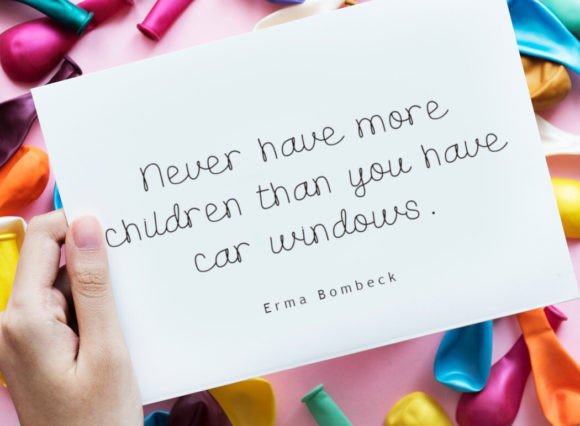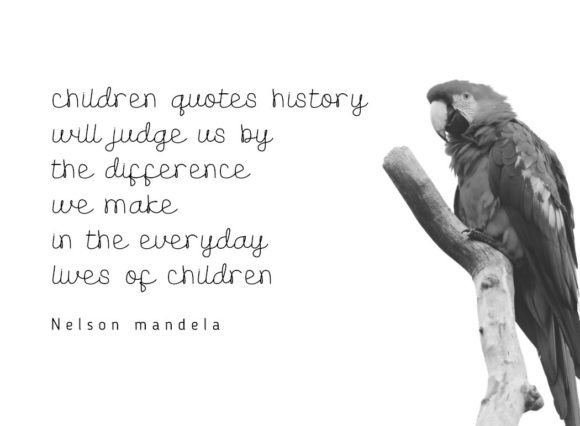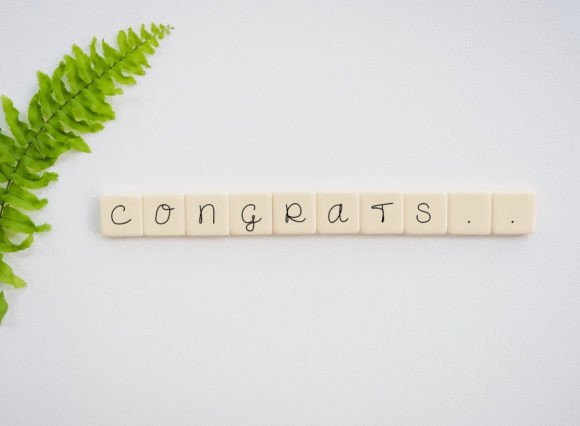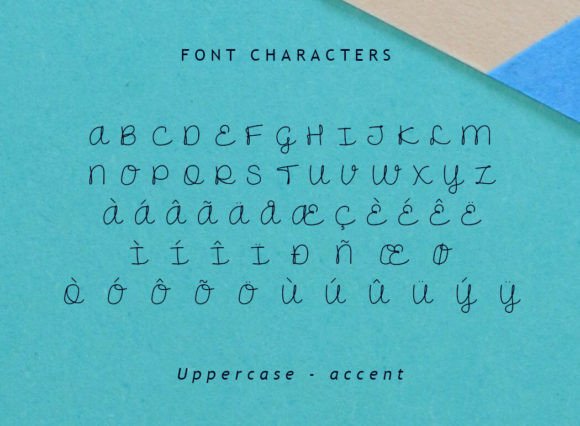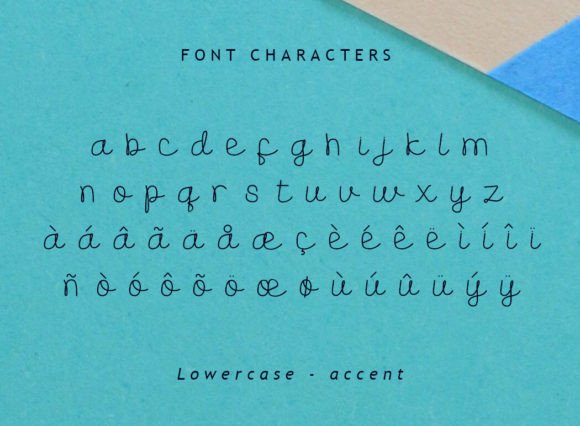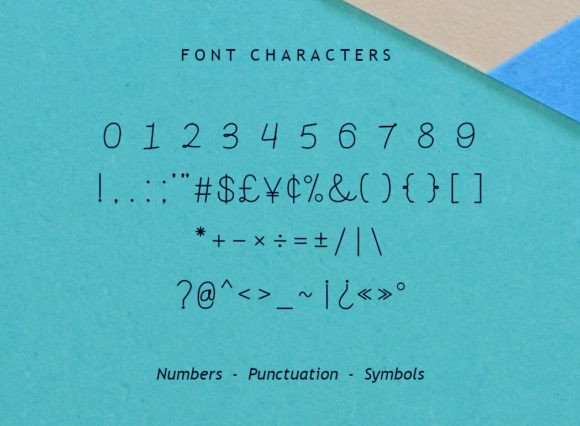
Introduction to Ryoten Font
Ryoten is a monoline handwritten script font with a fresh, fun and childhood look.
Suitable for wedding invitation, any greeting cards, quotes, headers, or any design that needs fun or childhood theme .
Key Features of Ryoten Font
Why Choose Ryoten Font?